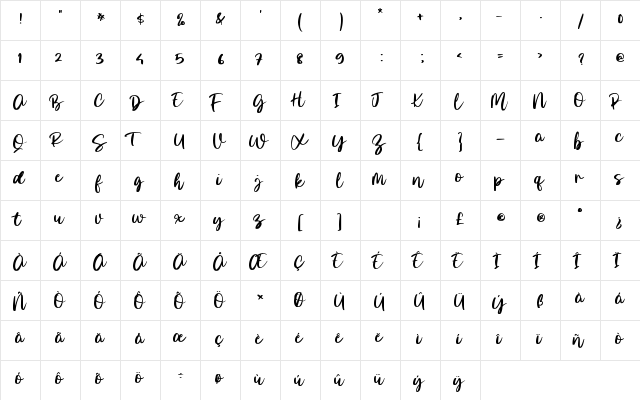
Morning Glory Regular
| Designer | Colllab Studio |
Design Context for Morning Glory Typeface
Morning Glory is a composed and adaptable typeface that performs quietly and consistently across a wide range of design contexts.